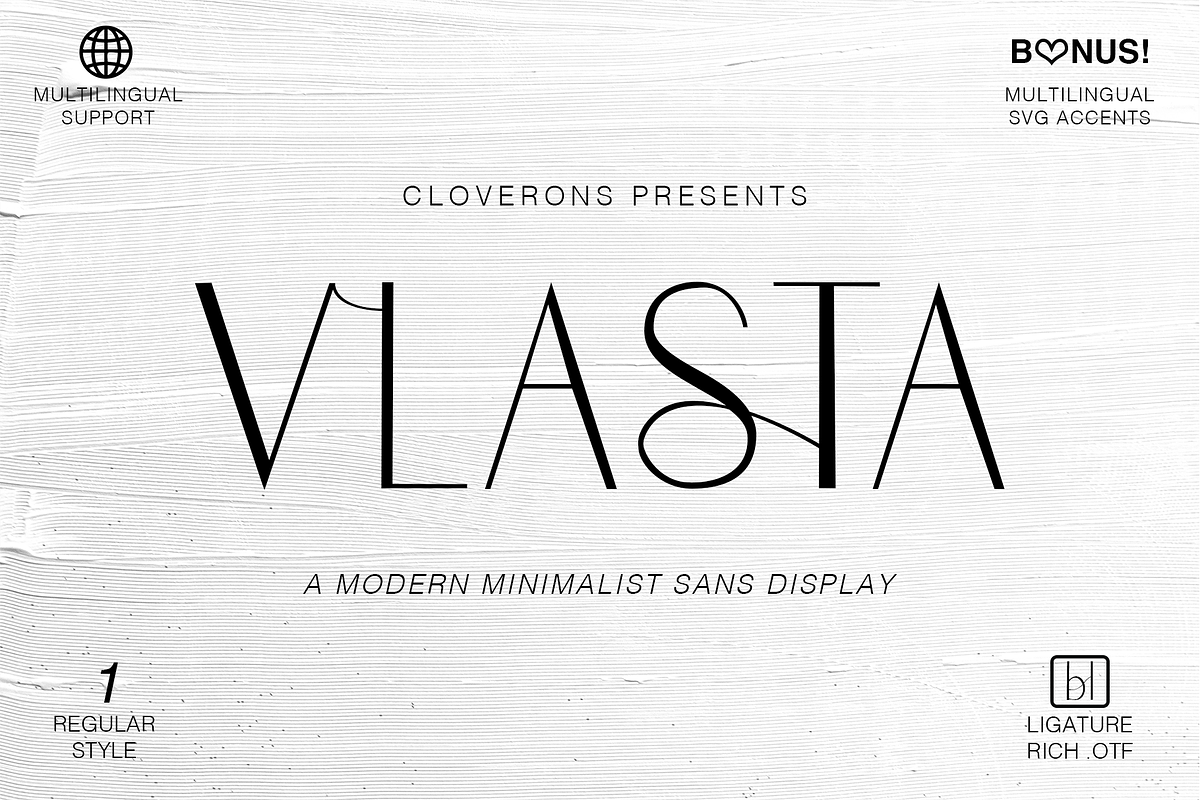
Vlasta Font Free Download is a minimal, modern sans-serif display typeface designed to bring sophistication and clarity to your designs. With its clean lines, geometric shapes, and balanced proportions, this font is perfect for high-end branding, editorial design, websites, and posters that need a bold yet refined aesthetic.
Its simplicity and modern appeal make it ideal for projects that demand professionalism with a touch of style. Whether you’re designing a contemporary logo, a minimalist website, or an elegant advertisement, Vlasta elevates your typography to the next level. Vlasta Font Free Download lets you explore its sleek design in personal projects before purchasing a commercial license.
Achieve a sharp and modern look with Vlasta — the minimal sans-serif font that speaks sophistication and elegance.